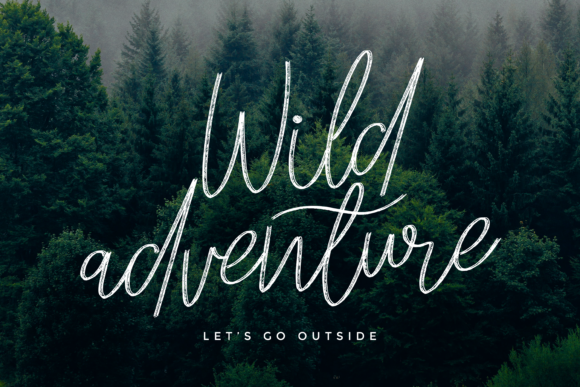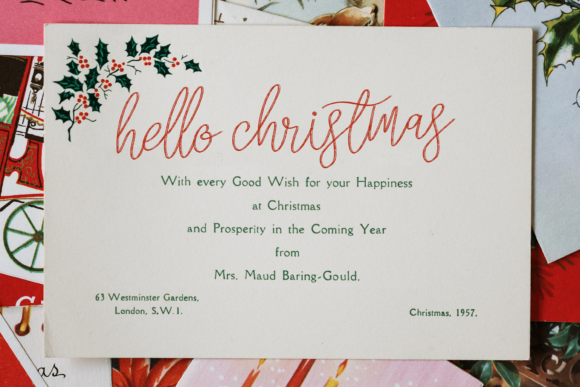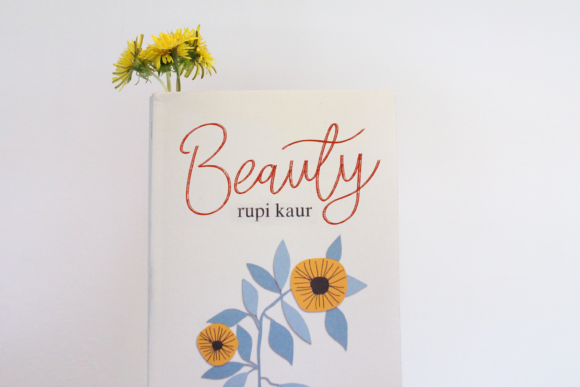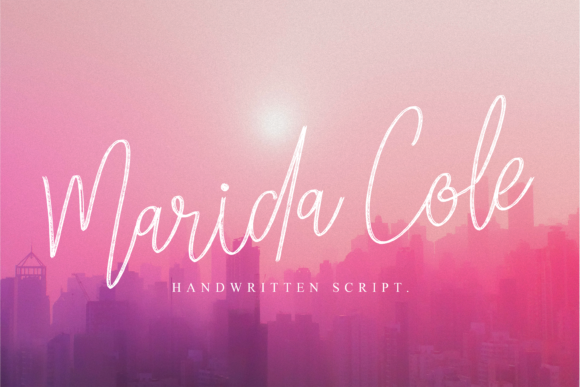
Introduction to Marida Cole Font
Marida Cole is a beautiful brushed handwritten font.
Cursive and flowing, this font will elevate each of your designs It looks lovely on a variety of designs requiring a personalized style, such as wedding invitations, thank you cards, weddings, greeting cards, logos and so on.
Key Features of Marida Cole Font
Why Choose Marida Cole Font?
Marida Cole Font offers exceptional quality and versatility, making it a valuable addition to your design toolkit. Whether you’re creating for personal projects or commercial use, Marida Cole Font delivers professional results.